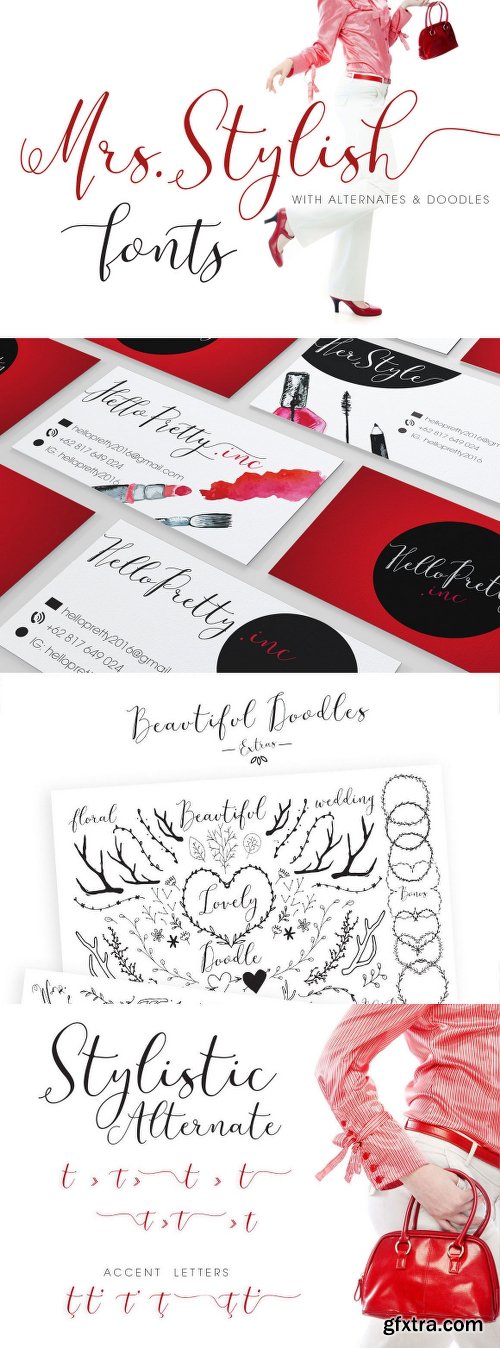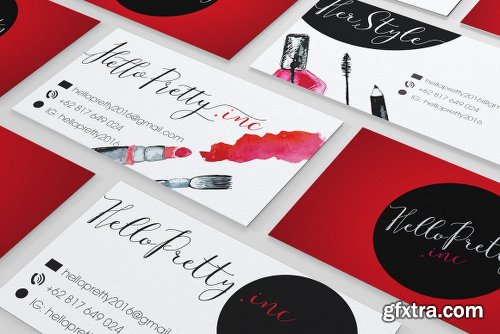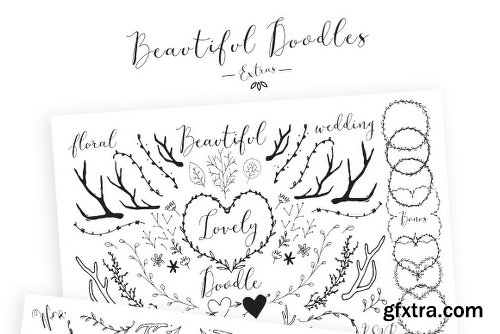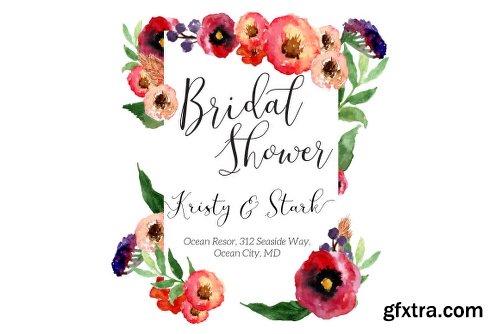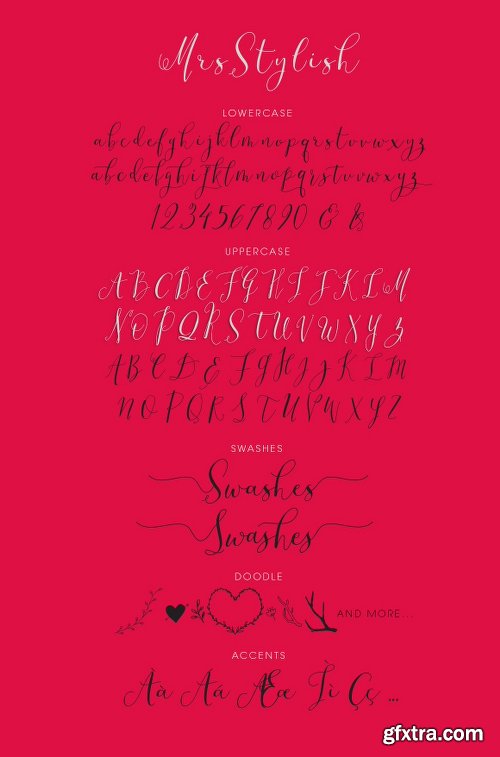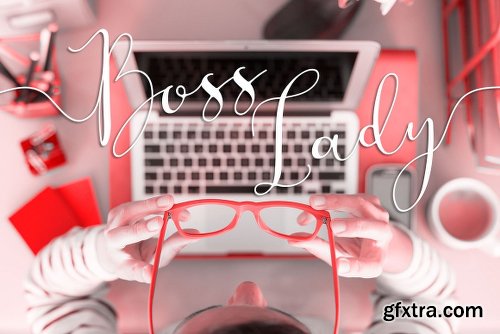
Hi Creative! Introducing my latest font, Mrs Stylish. Beautiful modern smooth script, with alternative letters, swashes and extra handdrawn doodles, ready to beautify your modern design.
Mrs Stylish font has extra alternative letters and swashes, combine them to get natural handwriting looks.
Bonus handdrawn romantic floral doodle, in EPS vector and Font (You can use and resize this doodle Font, if you didn't have vector software)
Very suitable for modern sweet design, modern wedding, feminine logo and branding, typography project, cover design, invitation, announcement, scrapboooking, photobook, blogger design, web design, modern wedding, book cover, moodboard, wall art, letter decor, printable art, project life, logo and branding, art quote, poster, baby shower and many more.
Mrs Stylish font support letters with accent (À Á Â Æ È Ë ã ä å æ è ...), accent available on All Swashes letters too. If you have any character request, feel free to send me message.
5 Stylistic Alternates (alternative letters, swashes)
Ligatures
Kerning